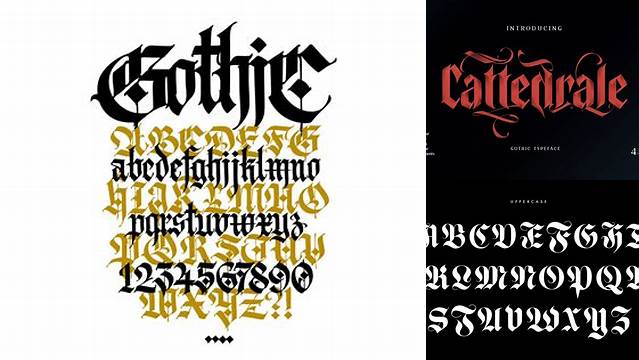
Hey guys! Ever felt the need to add a touch of mystery, history, or just plain coolness to your projects? Well, gothic fonts might just be your answer! And guess what? Dafont is a treasure trove for these awesome typefaces. In this article, we're diving deep into the world of gothic fonts dafont, exploring everything from their history to how you can use them to make your designs pop. Get ready to unleash your inner creative genius!
1. Understanding Gothic Fonts: An Introduction
So, what exactly are gothic fonts? To really understand gothic fonts dafont, it’s good to have a bit of background. These fonts, also known as Blackletter or Old English fonts, originated in Europe during the Middle Ages. Think of those medieval manuscripts and ancient texts – that’s the vibe we’re talking about! Gothic fonts are characterized by their dramatic, bold strokes and intricate details. They often have a hand-drawn feel, which makes them super unique and eye-catching. These fonts are perfect for projects where you want to convey a sense of history, darkness, or elegance. Whether you're designing a poster, creating a logo, or even just sprucing up a document, gothic fonts can add that special touch. The distinct look of gothic fonts can immediately set a tone, making them ideal for themes like fantasy, horror, or anything that needs a vintage feel. Gothic fonts dafont are plentiful and diverse, offering everything from ultra-ornate styles to more streamlined versions that fit modern designs. When choosing a gothic font, consider the overall message you want to convey and how the font will fit into your design. A gothic font can be a powerful tool, so make sure to use it effectively to create the impact you're aiming for. Don't be afraid to experiment with different styles and pairings to find the perfect match for your project. The world of gothic fonts is vast and exciting, so let’s dive in and discover what Dafont has to offer!
2. The History and Evolution of Gothic Fonts
The history of gothic fonts is super fascinating, tracing back to the medieval period! Understanding where these fonts came from can really help you appreciate their unique style and how they've evolved over time. Gothic fonts, also known as Blackletter, emerged around the 12th century in Europe. They were initially developed as a more efficient and compact script for writing manuscripts by hand. Imagine scribes carefully crafting each letter – that’s the dedication that went into these early fonts! One of the earliest and most influential gothic fonts was Textura, characterized by its tall, narrow letters and sharp angles. This style was widely used for religious texts and formal documents. As printing technology advanced with Gutenberg's printing press in the 15th century, gothic fonts became even more widespread. They were the dominant typeface for printed materials in many parts of Europe for centuries. Different regions and time periods saw variations in gothic font styles, leading to a diverse family of typefaces. Some are more ornate and decorative, while others are simpler and more legible. Over time, gothic fonts began to decline in popularity in favor of humanist and Roman typefaces, especially during the Renaissance. However, they’ve experienced revivals at various points, particularly in the 19th century and in contemporary design. Today, gothic fonts continue to be used for a wide range of applications, from branding and logos to posters and digital art. They evoke a sense of history, tradition, and sometimes even a bit of edginess. If you’re looking to capture a vintage or dramatic vibe, gothic fonts are an excellent choice. The evolution of gothic fonts reflects changing tastes and technologies, but their impact on typography and design remains significant. So, when you explore gothic fonts dafont, remember you're engaging with a typeface that has a rich and storied past. It’s like a piece of history brought to life in your designs!
3. Finding the Best Gothic Fonts on Dafont
4. Top 10 Free Gothic Fonts on Dafont
Ready to dive into some specific fonts? Here are 10 free gothic fonts on Dafont that are total standouts. These are some top picks that can give your projects that perfect gothic flair. First up is Black Knight, a classic Blackletter font that exudes medieval charm. It’s perfect for titles, logos, and designs that need a touch of old-world elegance. Then there’s Gothical, which offers a slightly more modern twist on the traditional gothic font. Its clean lines make it surprisingly versatile for both print and digital projects. If you’re after something with a bit more drama, check out Nosferatu. This font has a spooky, horror-inspired feel, making it ideal for Halloween designs or anything with a dark theme. Old London is another fantastic option, evoking the historical vibes of ye olde England. It’s great for certificates, invitations, and anything that needs a vintage touch. For a more ornate and decorative look, Cloister Black is an excellent choice. Its intricate details make it perfect for headers and eye-catching titles. Deutsch Gothic is a strong, bold font that commands attention. It’s ideal for posters, banners, and anything that needs to make a statement. If you want a font that feels handwritten, Anglican Text has a beautiful calligraphic style that’s both elegant and readable. VTC Letter Gothic offers a more contemporary take on the gothic style, with a clean and streamlined design. Hocus Pocus is a fun, playful font that still retains the gothic feel, making it great for more casual projects. Last but not least, Aeterna is a sophisticated gothic font with a slightly futuristic edge, perfect for adding a unique touch to your designs. These gothic fonts dafont represent just a small slice of the amazing variety available. Each font has its own personality and unique characteristics, so experiment and see which ones fit your style. Happy designing!